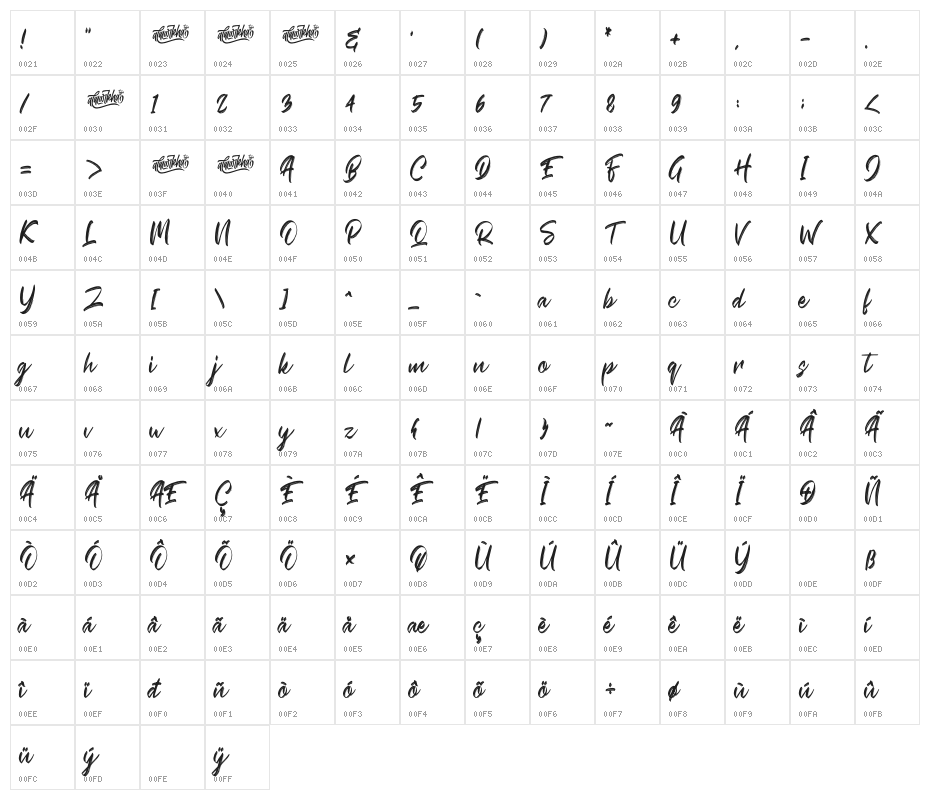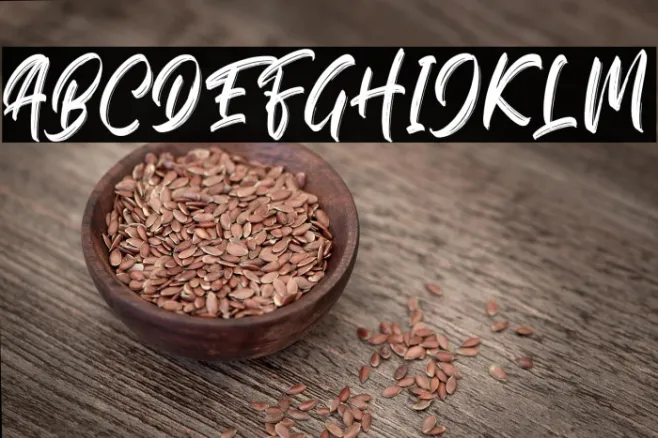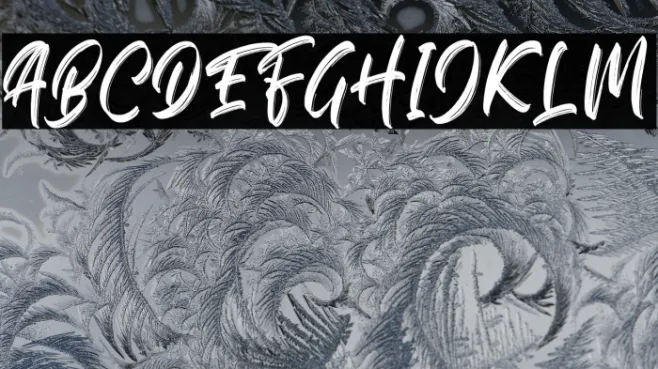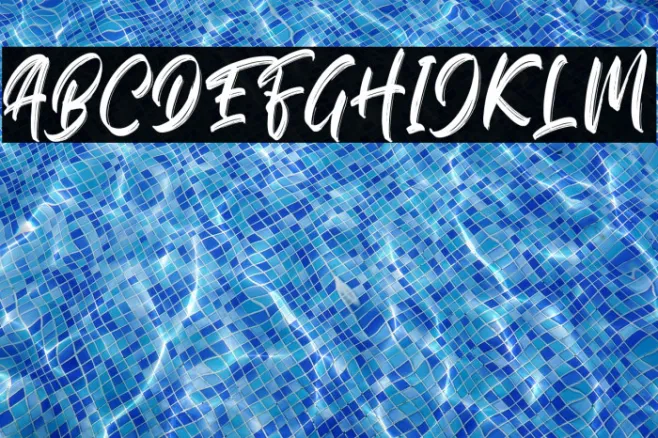
Crash Soul Font
Crash Soul Description
This font exhibits a bold, expressive style with a handwritten flair. The uppercase letters are dynamic and fluid, featuring sweeping strokes that convey a sense of movement and energy. The lowercase characters maintain this lively aesthetic, with a slightly more restrained form that ensures readability. Numbers and special characters are crafted with the same attention to detail, offering a cohesive look across all glyphs. The overall impression is one of creativity and spontaneity, making it ideal for projects that require a personal touch.
| Proposed Projects | Ideal for branding, logo design, posters, and invitations where a personal and artistic touch is desired. |